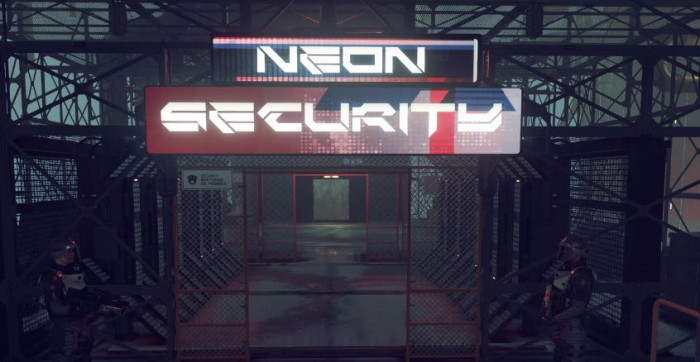
Congrats! What a great font you've made (IMHO)! My 10 is 4U + fave, dear Neoqueto (compañero/compañera? Don't worry about this, It's only curiosity)!
PS: Well, talking about to improve this special font, I think the space between words can be increased a bit. What do you think about this, please?
I really like this bold version :)
Very cool font, I found it in the logo on this Russian site.
I saw your font in Starfield, it's very cool, millions of people saw it, they actually bought it, you have a non-commercial license here?
Thank you Dmitriy! Well, Bethesda didn't contact me so it's a bit of a gray area, certainly dark gray in Europe. At least fonts aren't xenowarfare tech so I am not gonna pursue them for that. The lack of land vehicles is the bigger crime, jeez. I must say I was certainly surprised the first time I visited Neon City, had to blink at least 3 times.
KleenBlades LDR is also used for the Horizon Defense logo.